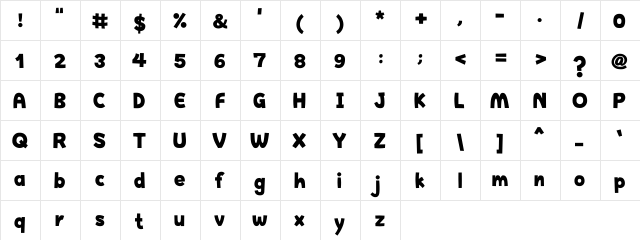
Happy Hell Regular
Design Context for Happy Hell Typeface
Happy Hell is a composed and adaptable typeface that performs quietly and consistently across a wide range of design contexts.
Pro Tip: Use Happy Hell in both headline and body roles to test its range before committing to a single application.